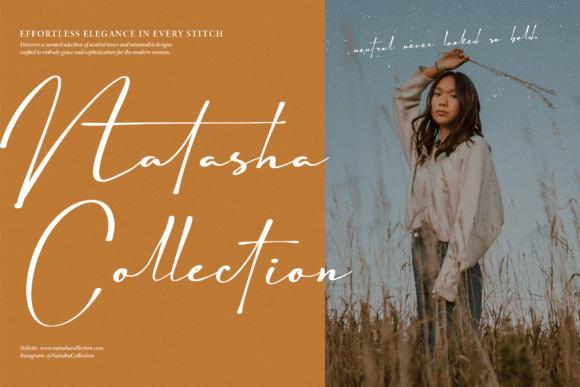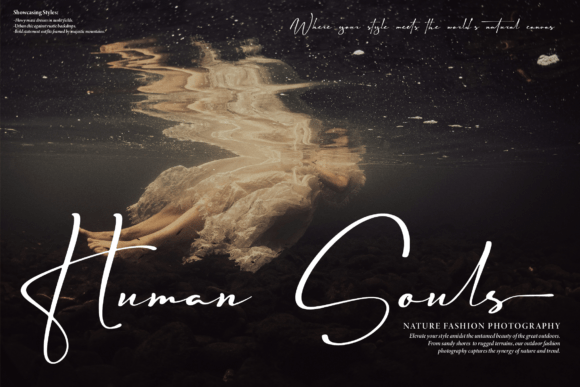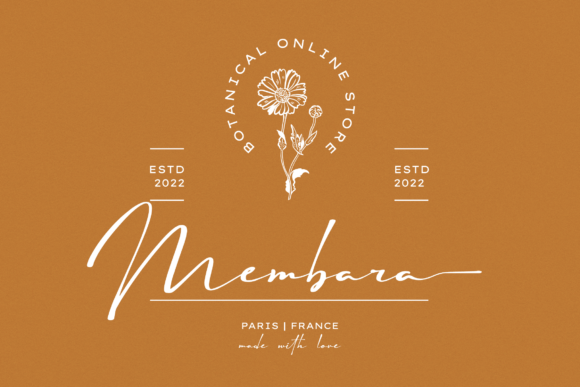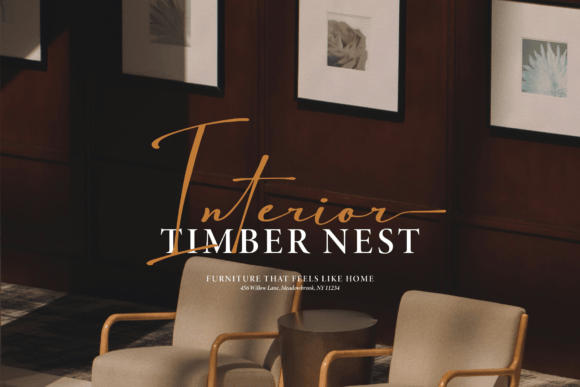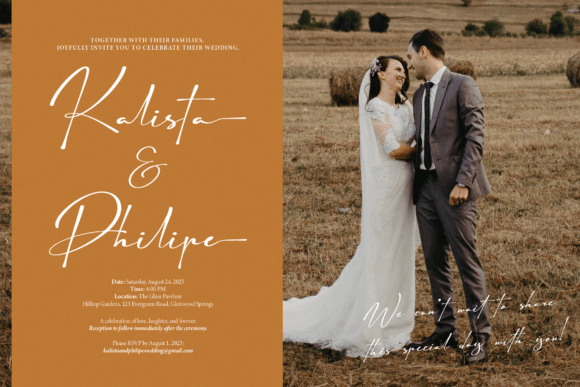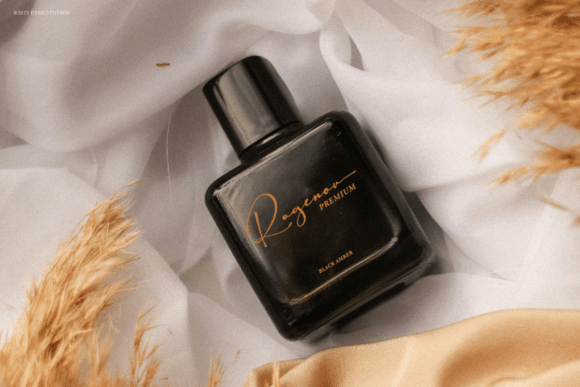
Introduction to Astelafisa Font
Discover the timeless beauty of Astelafisa, a classic signature script font that radiates sophistication and elegance.
With its sleek lines, natural flow, and over 300+ glyphs, this font is perfect for creating luxurious branding, stunning logos, heartfelt invitations, and elegant stationery Featuring ligatures, alternates, and multilingual support, Astelafisa is as versatile as it is stylish.
Key Features of Astelafisa Font
Why Choose Astelafisa Font?
Astelafisa Font offers exceptional quality and versatility, making it a valuable addition to your design toolkit. Whether you’re creating for personal projects or commercial use, Astelafisa Font delivers professional results.